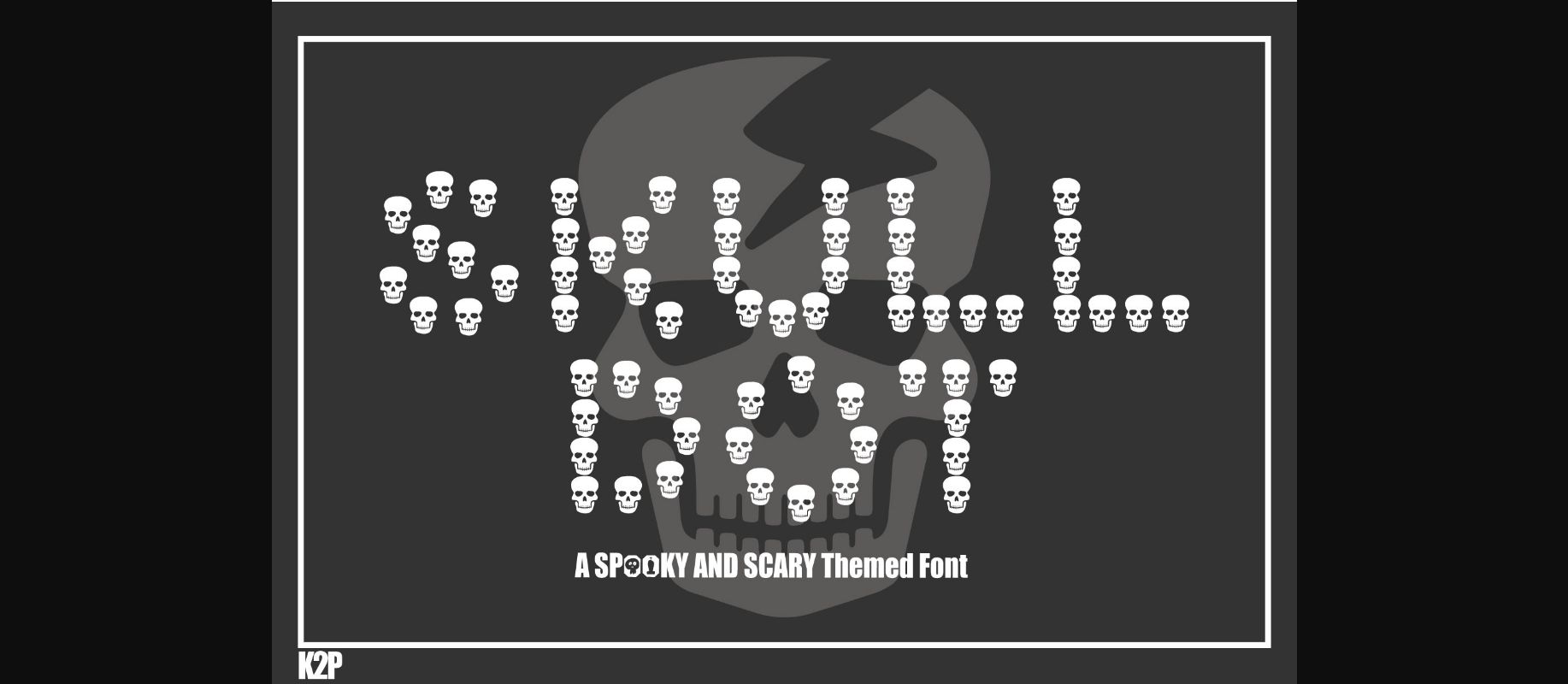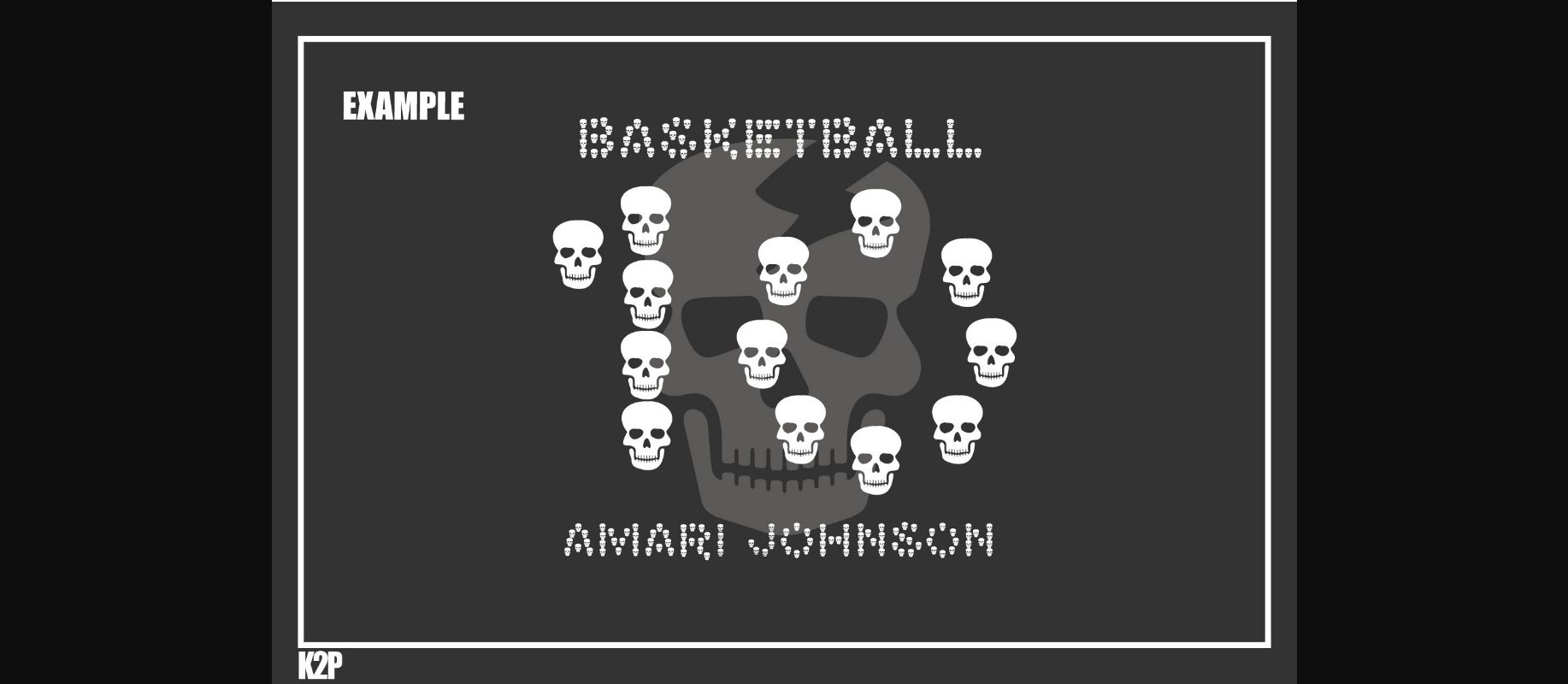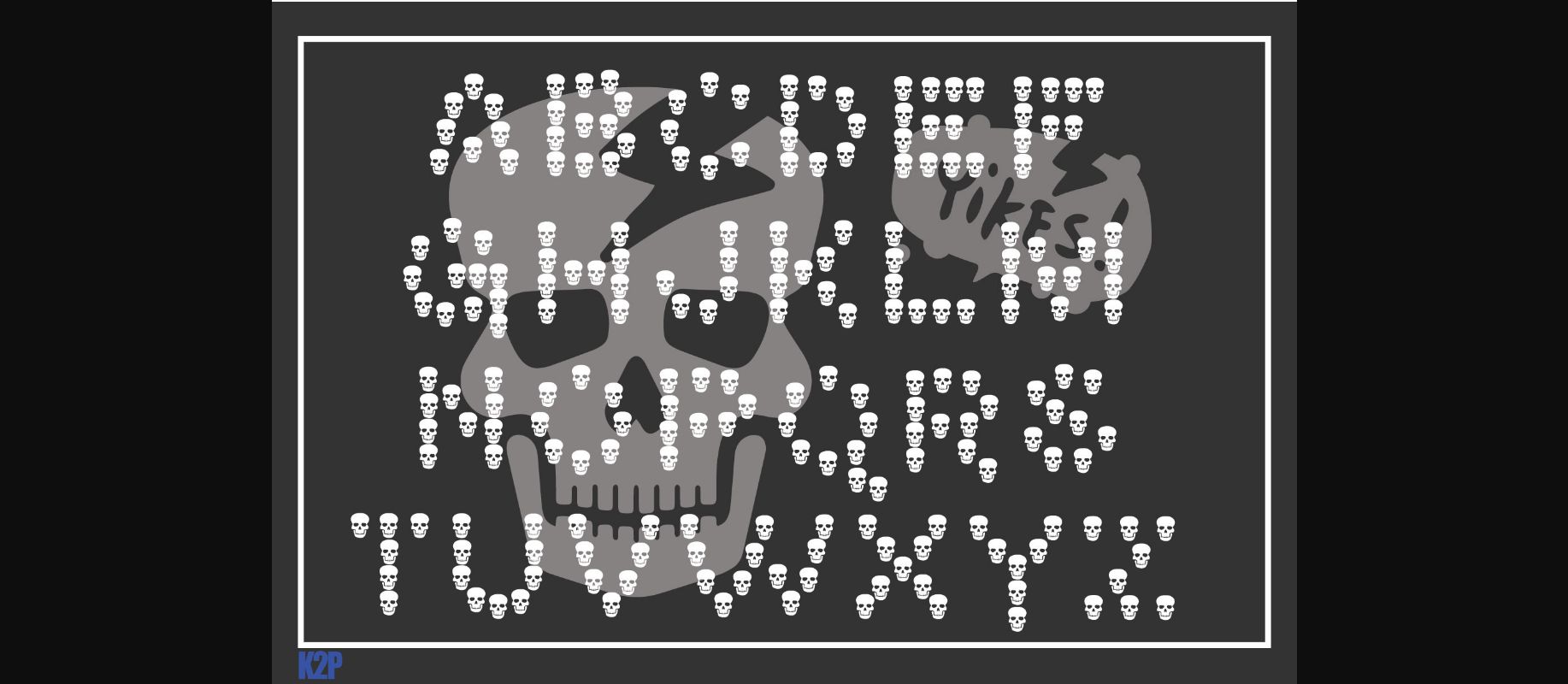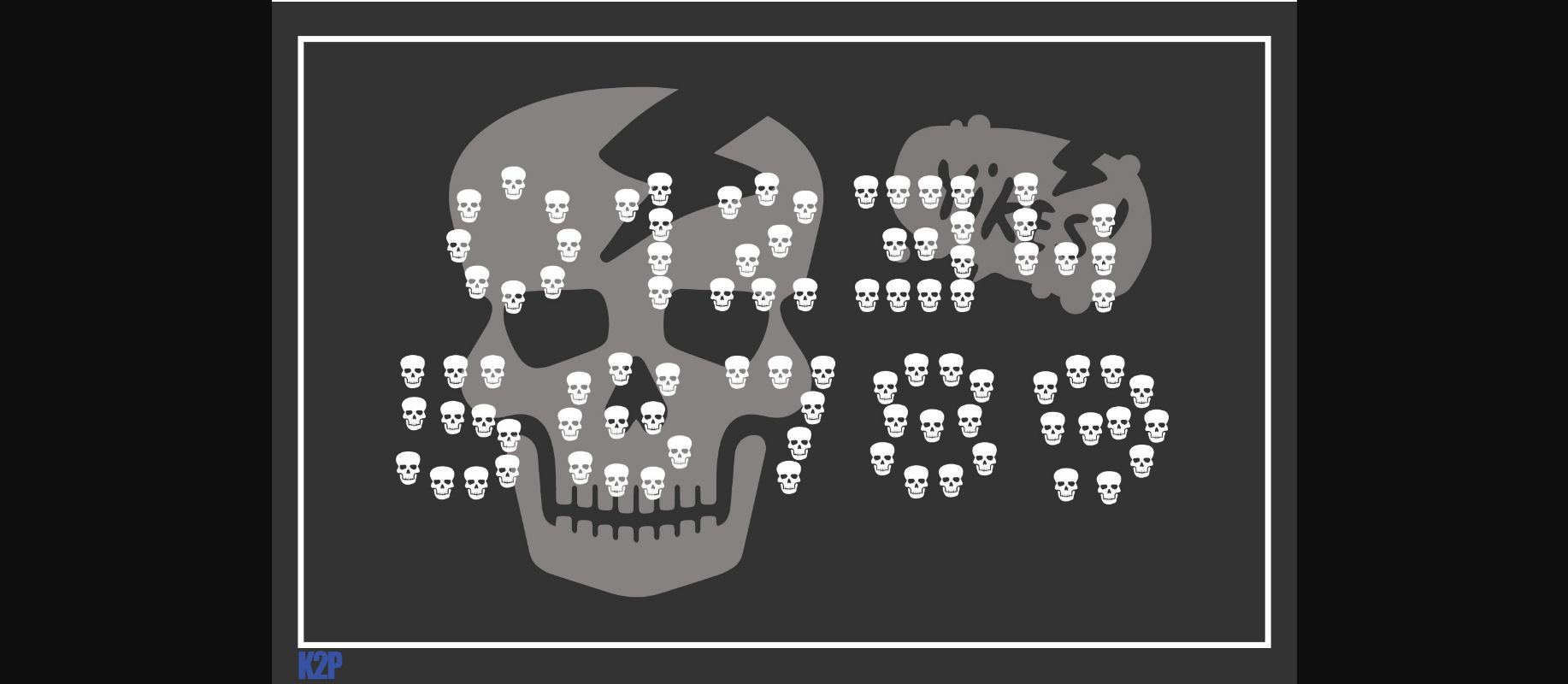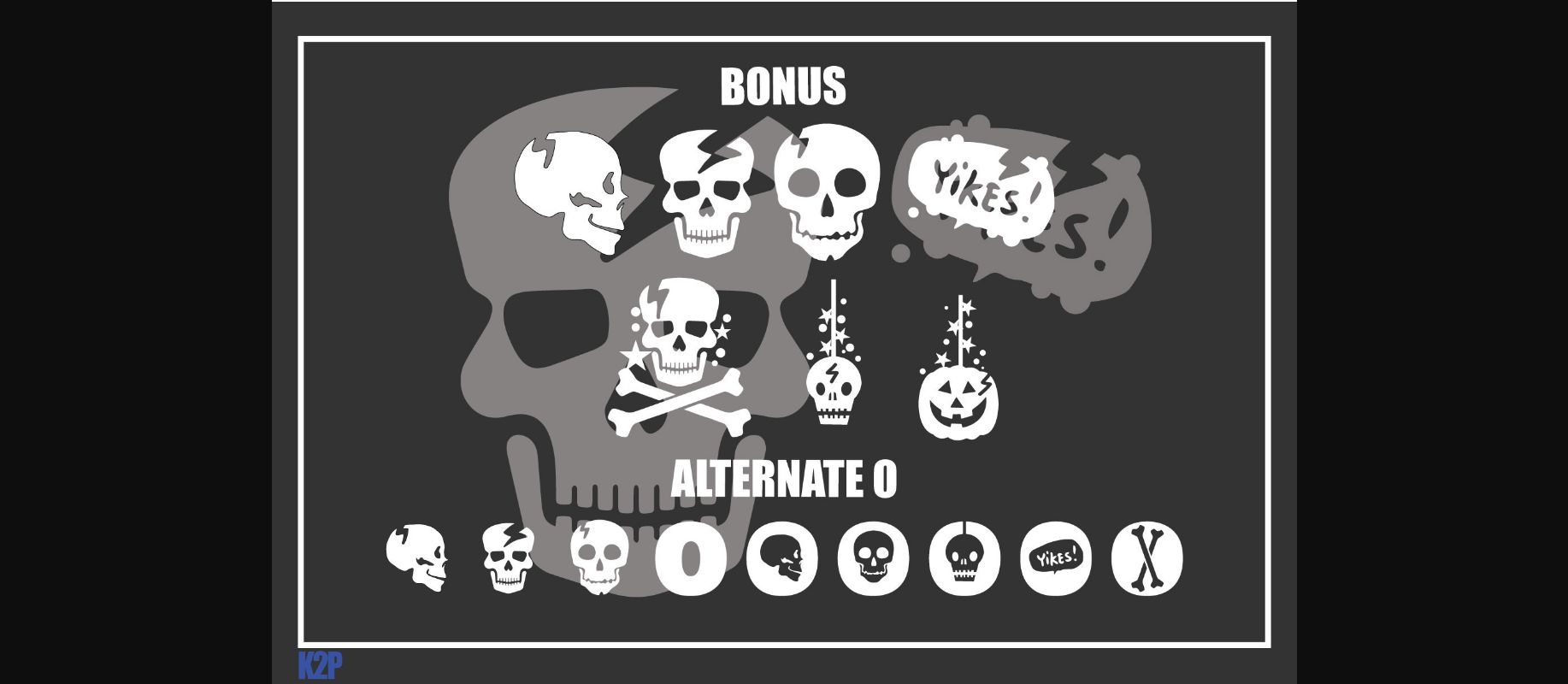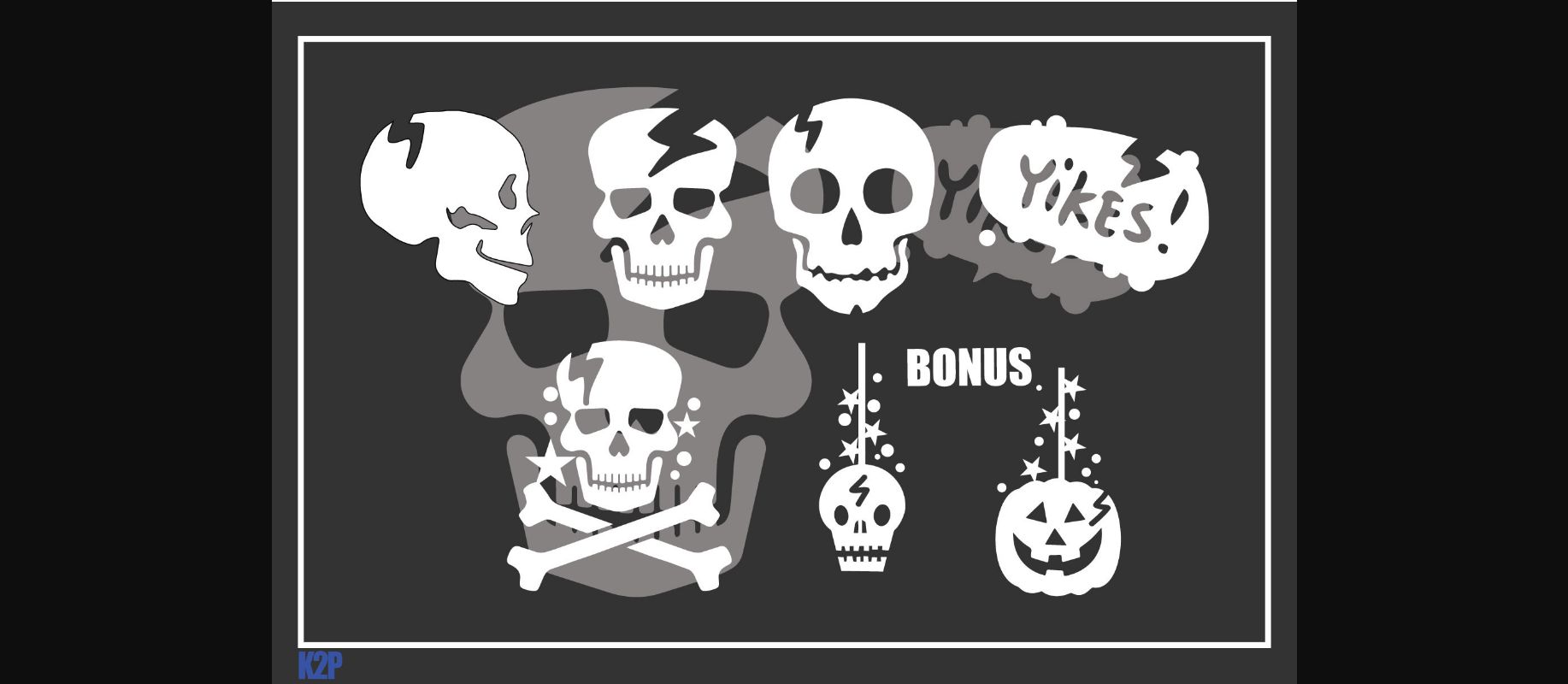
Skull Dot Font
About Skull Dot Font
Skull Dot is a thick-lettered and spooky decorative font. It is perfectly suitable for any Halloween-related project or crafty idea! The only limit is your imagination.